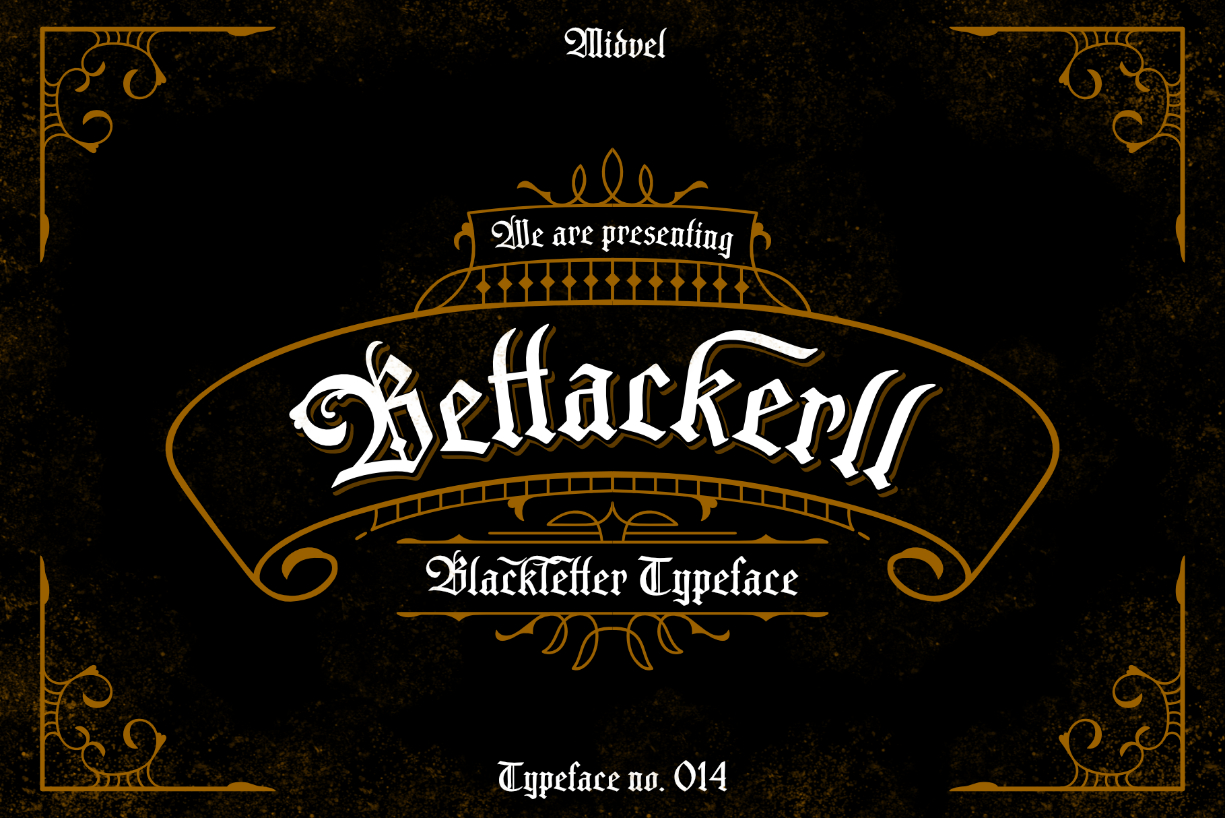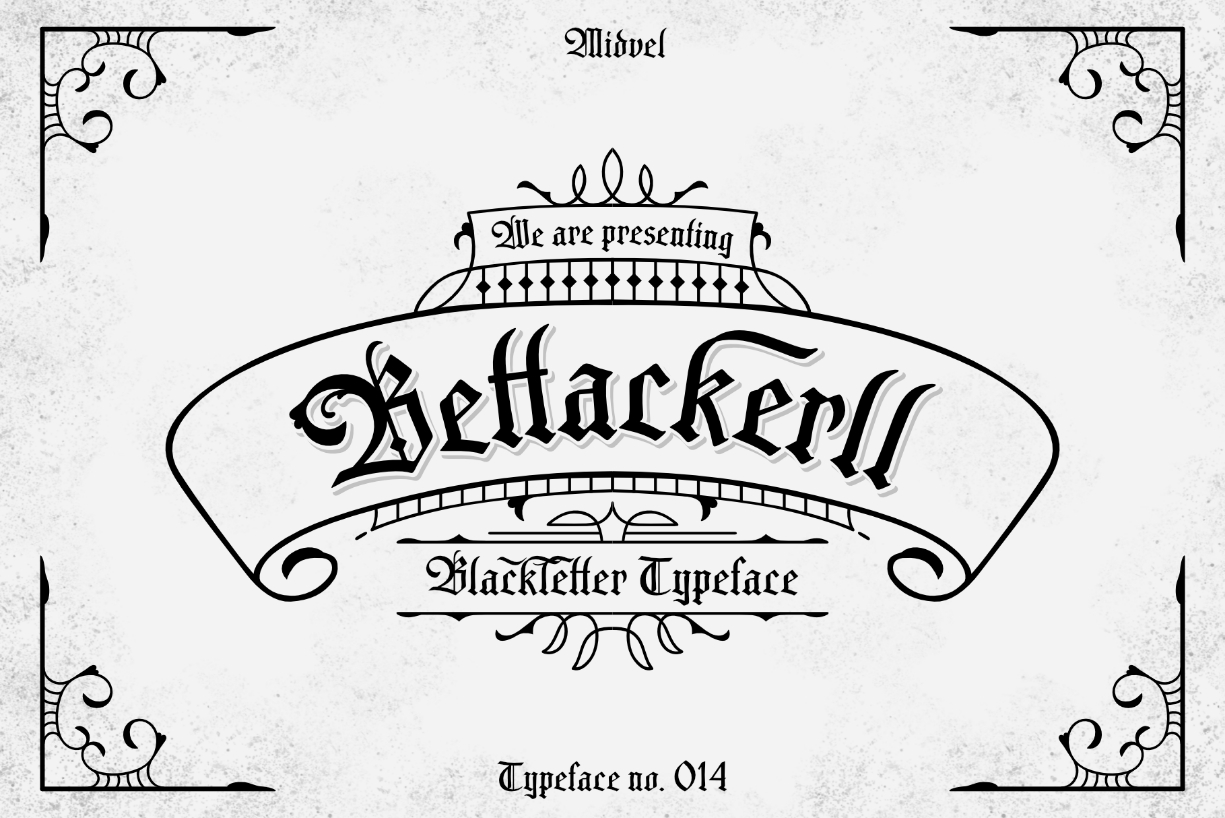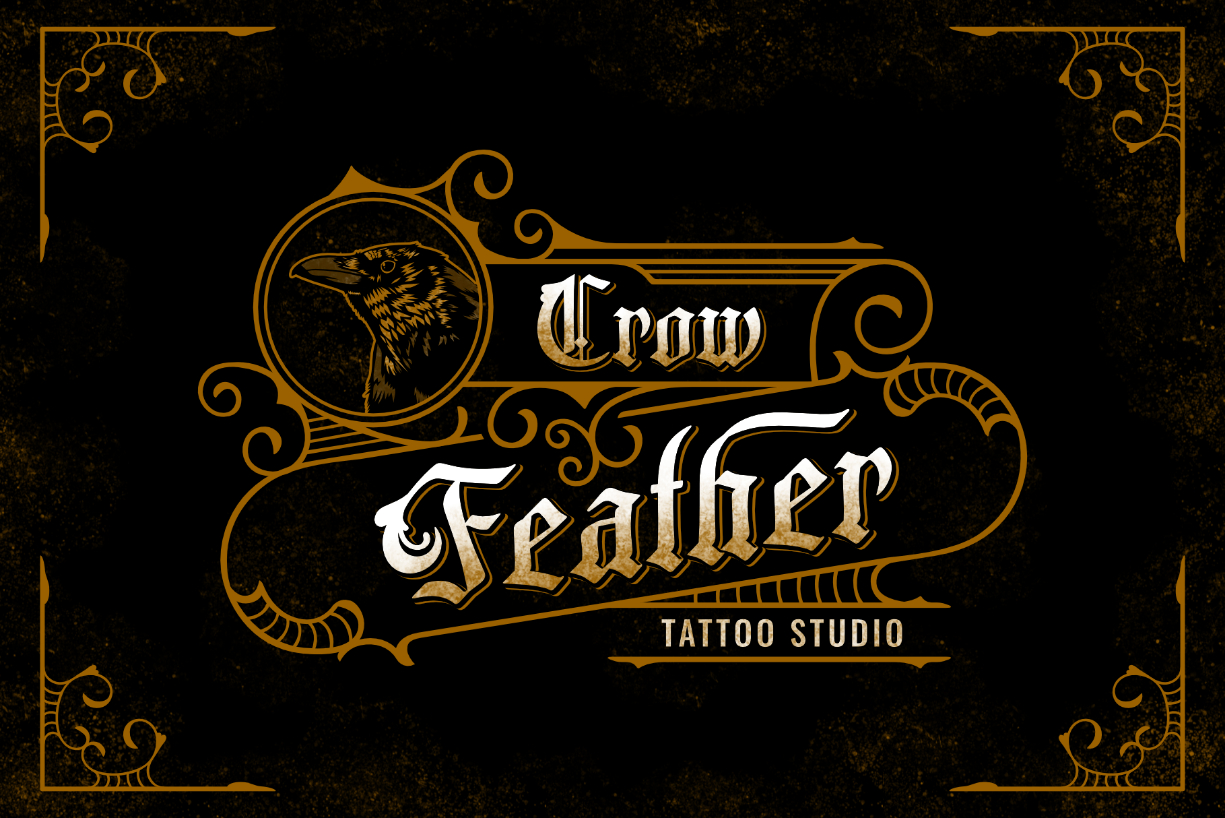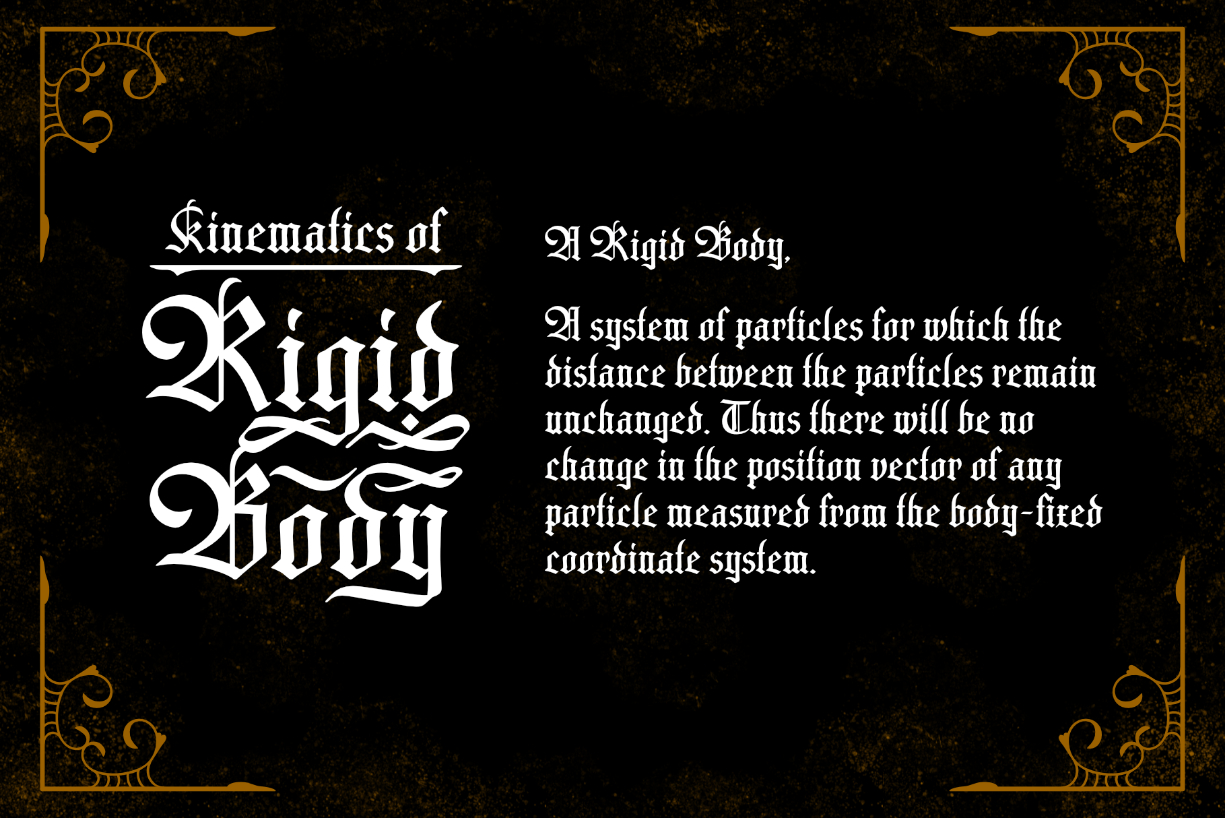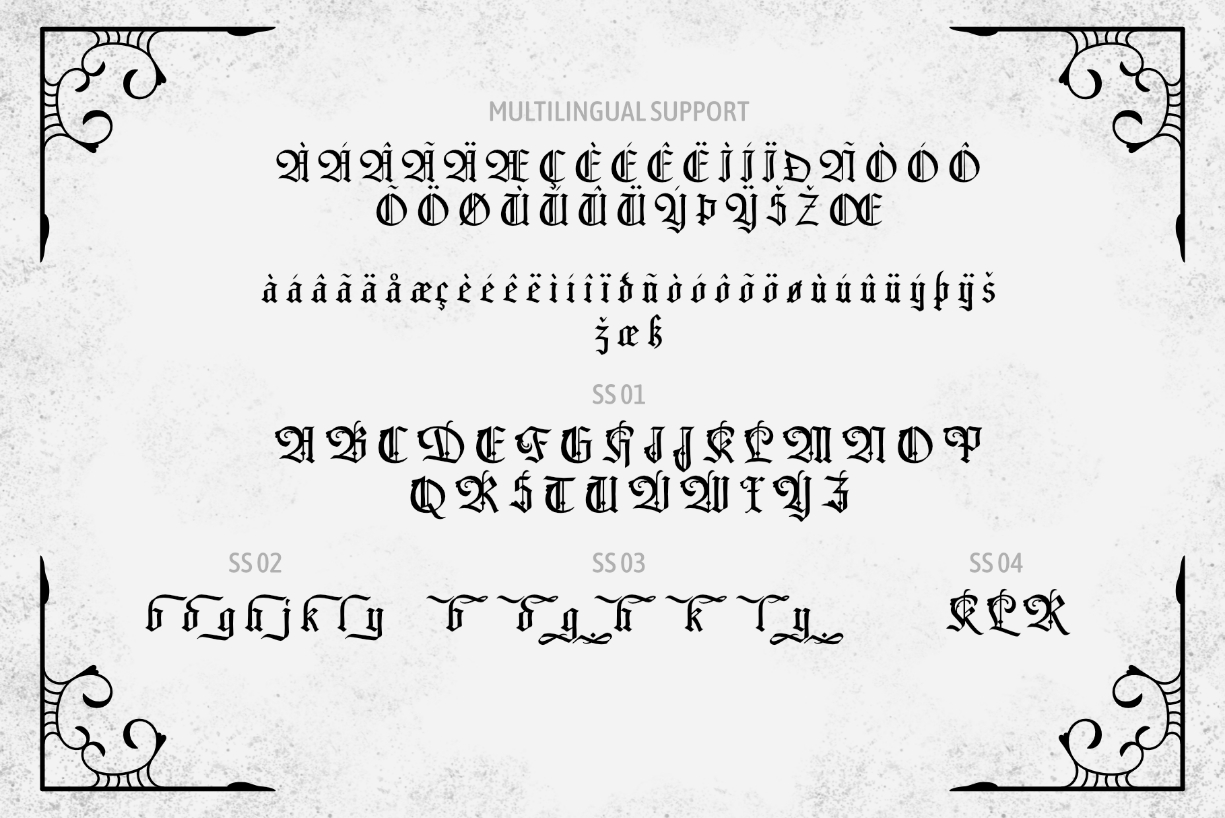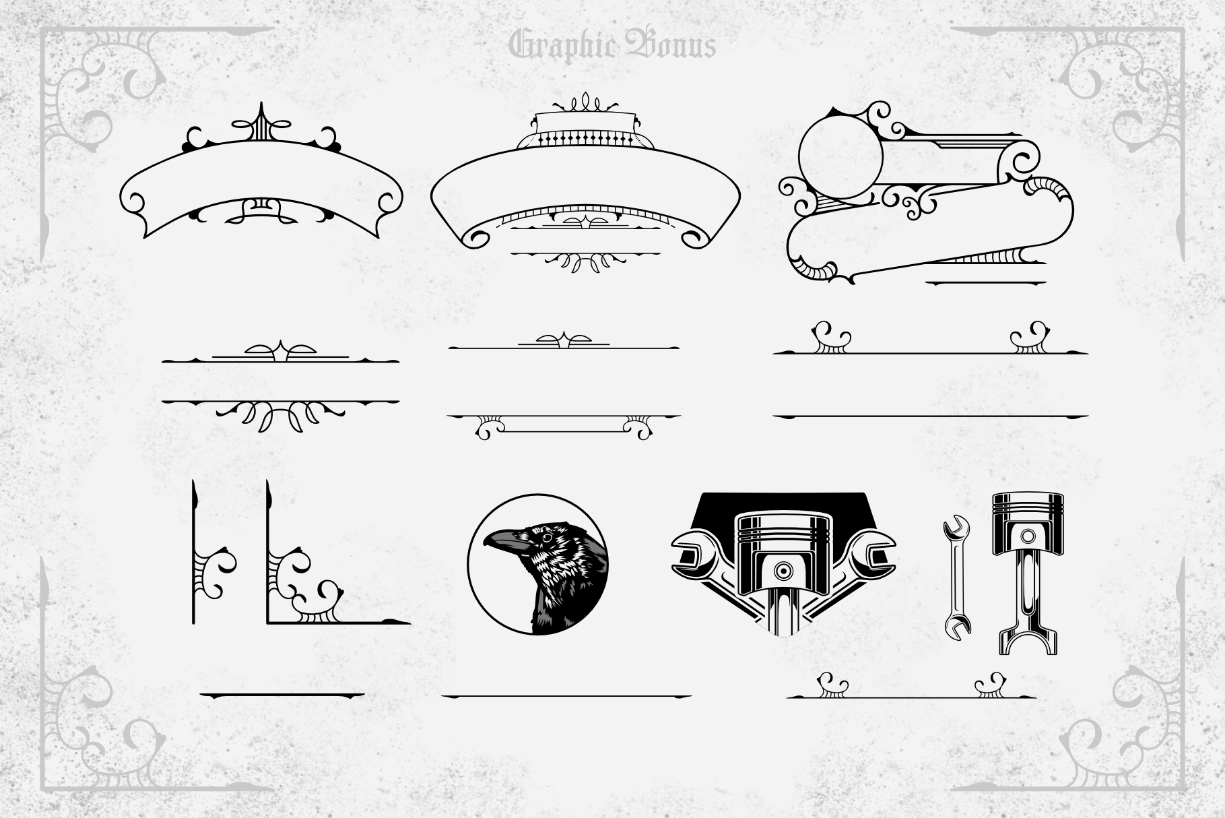
About Bettackerll Font
Bettackerll is an elegant, Gothic-style display font. If you’re looking to add some style and refinement to your projects, this typeface will definitely deliver the expected results. This font is PUA encoded which means all the glypsh and ligatures with ease!